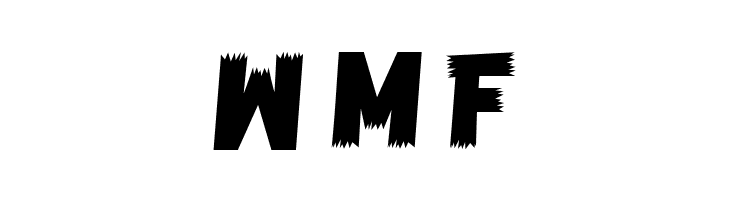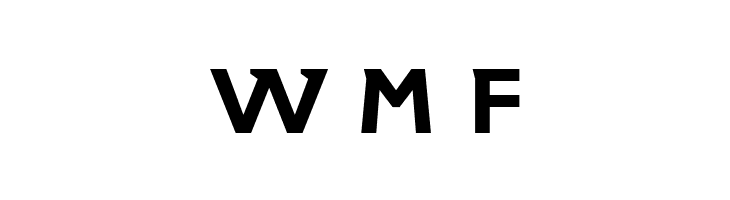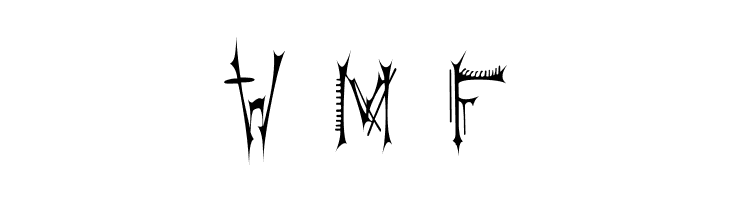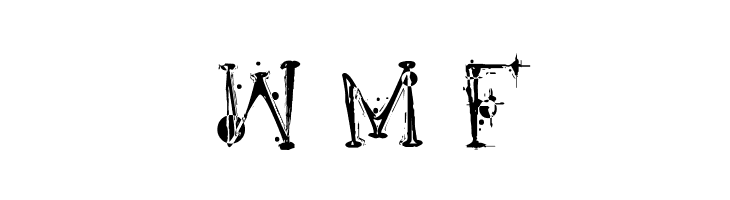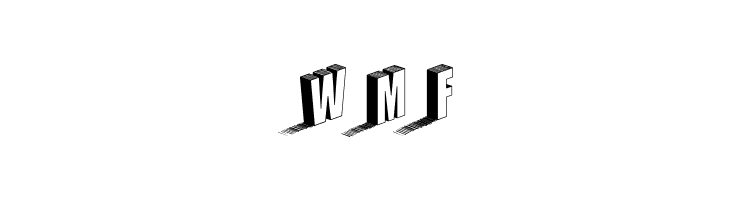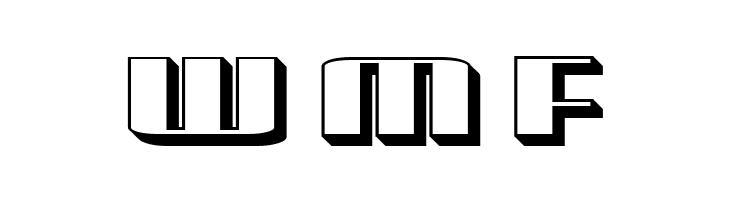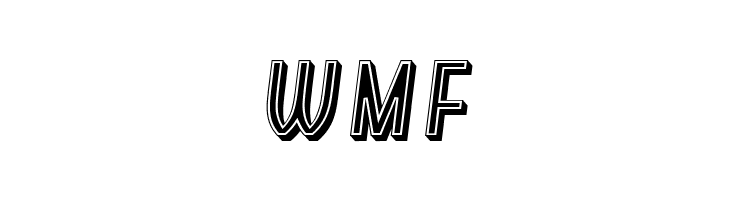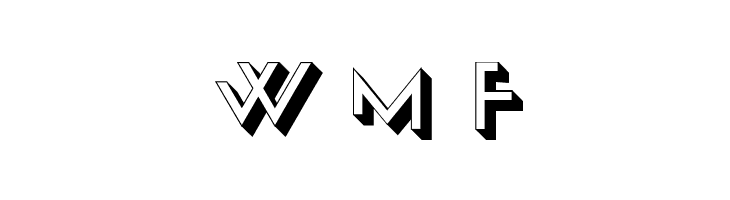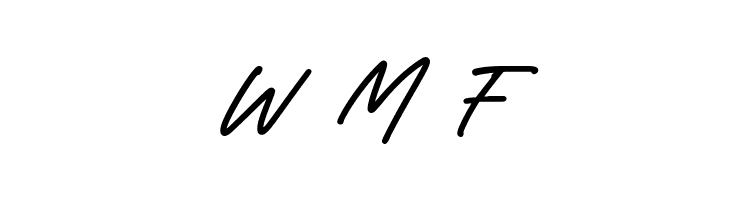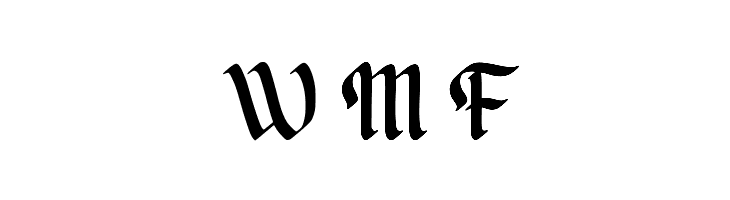
A bold, 3D geometric font with a strong shadow effect.
A bold, filled-in font with thick outlines and a strong visual impact.
A futuristic hollow font with geometric outlines and a modern aesthetic.
A bold, jagged font ideal for horror-themed designs.
A bold serif font with strong, classic serifs and a professional appearance.
A bold, oblique sans-serif font with a modern and dynamic style.
A bold, edgy font with sharp, thorn-like details and a gothic, tribal aesthetic.
A decorative and grungy font with chaotic, distressed design elements.
A bold and playful font with exaggerated curves and a whimsical style.
A bold, 3D hollow font with shadow effects for striking displays.
A classic serif font with light weight and elegant, elongated characters.
A bold, shadowed font with a vintage, three-dimensional look.
A bold, 3D geometric font with a shadow effect, perfect for striking headlines.
A bold, italicized font with a three-dimensional shadow effect.
A bold, 3D font with strong shadows and a retro comic book style.
A modern, monospaced font with clear legibility and uniform spacing.
A cursive, handwritten font with elegant, flowing characters.
A flowing, cursive font with elegant, interconnected letters.
A playful, handwritten font with irregular strokes and a casual, approachable style.
A bold, blackletter font with intricate detailing and a gothic aesthetic.
A dynamic and fluid handwritten font with elegant cursive strokes.
A playful, elegant handwritten font with fluid cursive letterforms.
An artistic, calligraphic font with flowing strokes and elegant curves.
A bold, flowing script font with elegant, dynamic strokes.
A dynamic handwritten script font with fluid, cursive letterforms.
A playful, casual handwritten font with smooth, rounded letterforms.
A decorative font with geometric shapes and intricate detailing, perfect for fantasy themes.
A bold, brush-style font with dynamic, handwritten strokes.
A lively and expressive handwritten font with fluid strokes and a personal touch.
A playful, heart-embellished decorative font with bold, rounded characters.
A modern, bold, and italicized font with a sleek and professional appearance.
A clean, modern font with consistent stroke width and high readability.
A casual and flowing handwritten script with elegant connections.